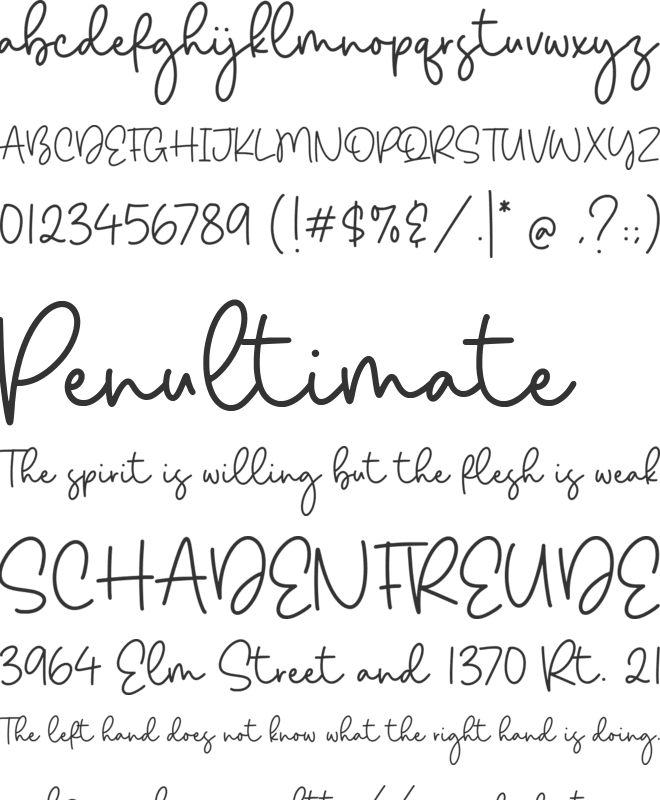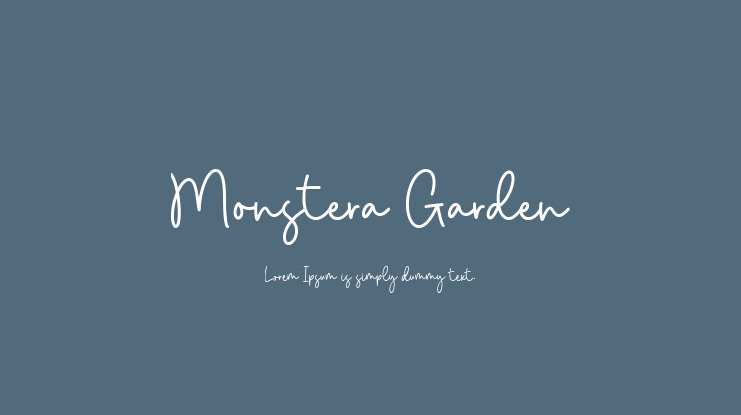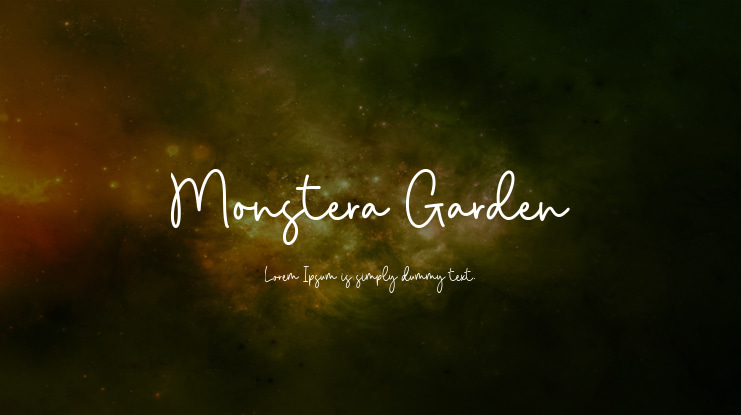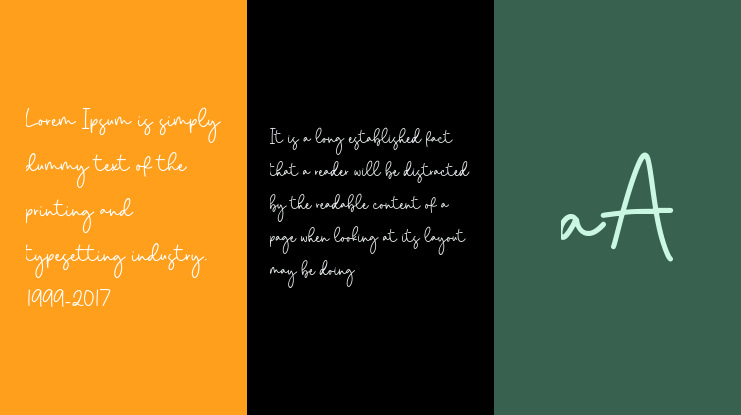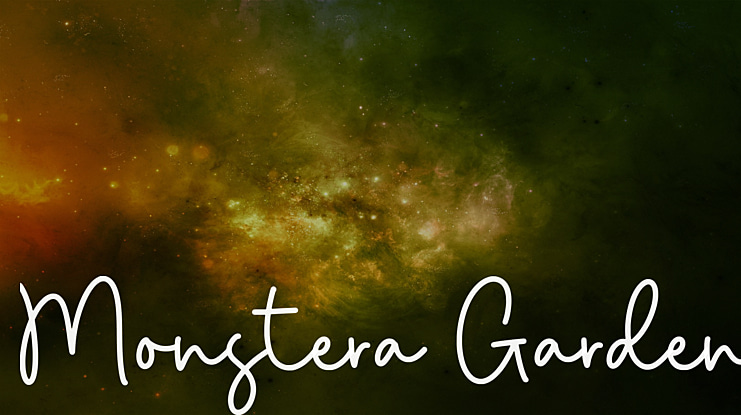
Monstera Garden Font
Proudly Present Monstera Garden
Monstera Garden is a  Handwritten script font that is modern and fresh, and will bring a warm and inviting feel to your business. Take advantage of the fonts and experience the magic for yourself.
Monstera Garden  is perfect for product packaging, branding project, megeenazine, social media, wedding, or just used to express words above the background.
-Full Set of standard alphabet and punctuation